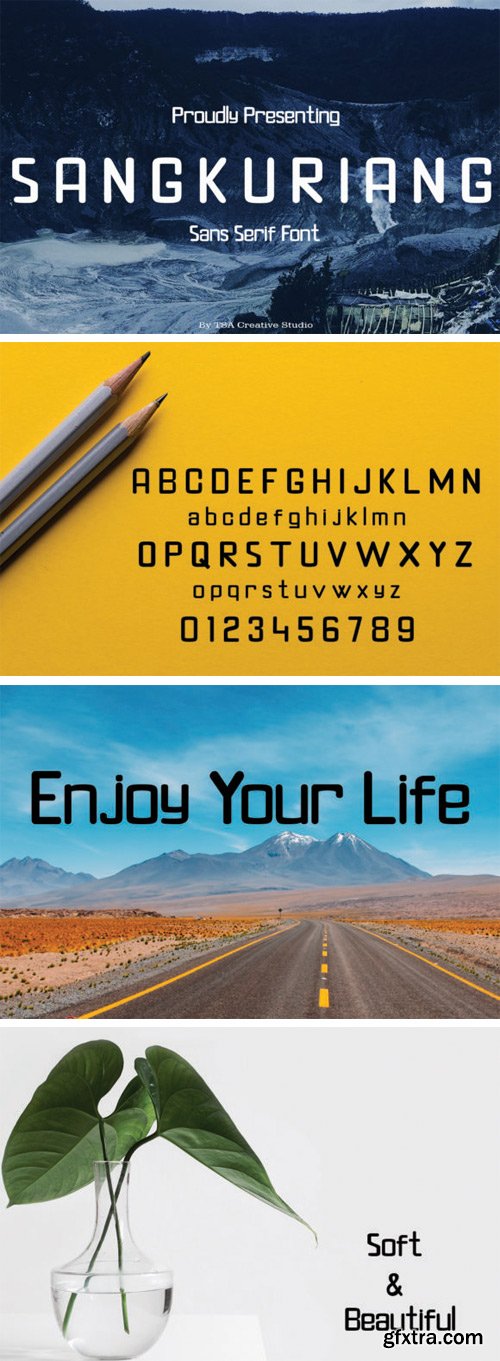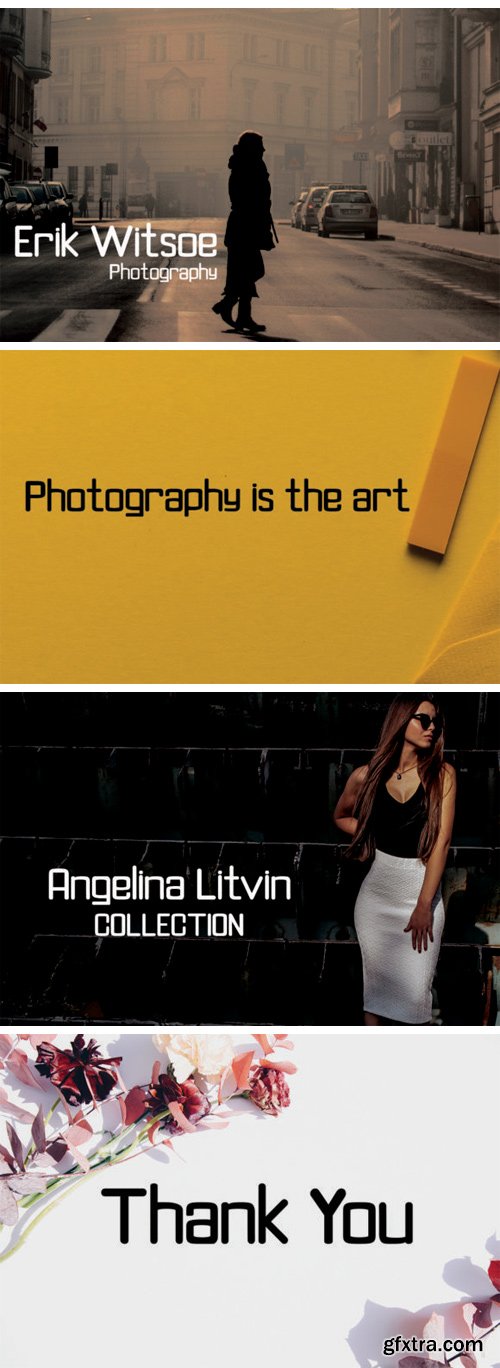
桑姬拉翁字体
Sangkuriang Font
The Sangkuriang is a modern sans serif typeface. It has a bold and striking style which will make any design stand out! It’s perfect for typewriter designs, headlines, logos, subheadings, notes, big banners, and every other design which needs a calssic typeface.